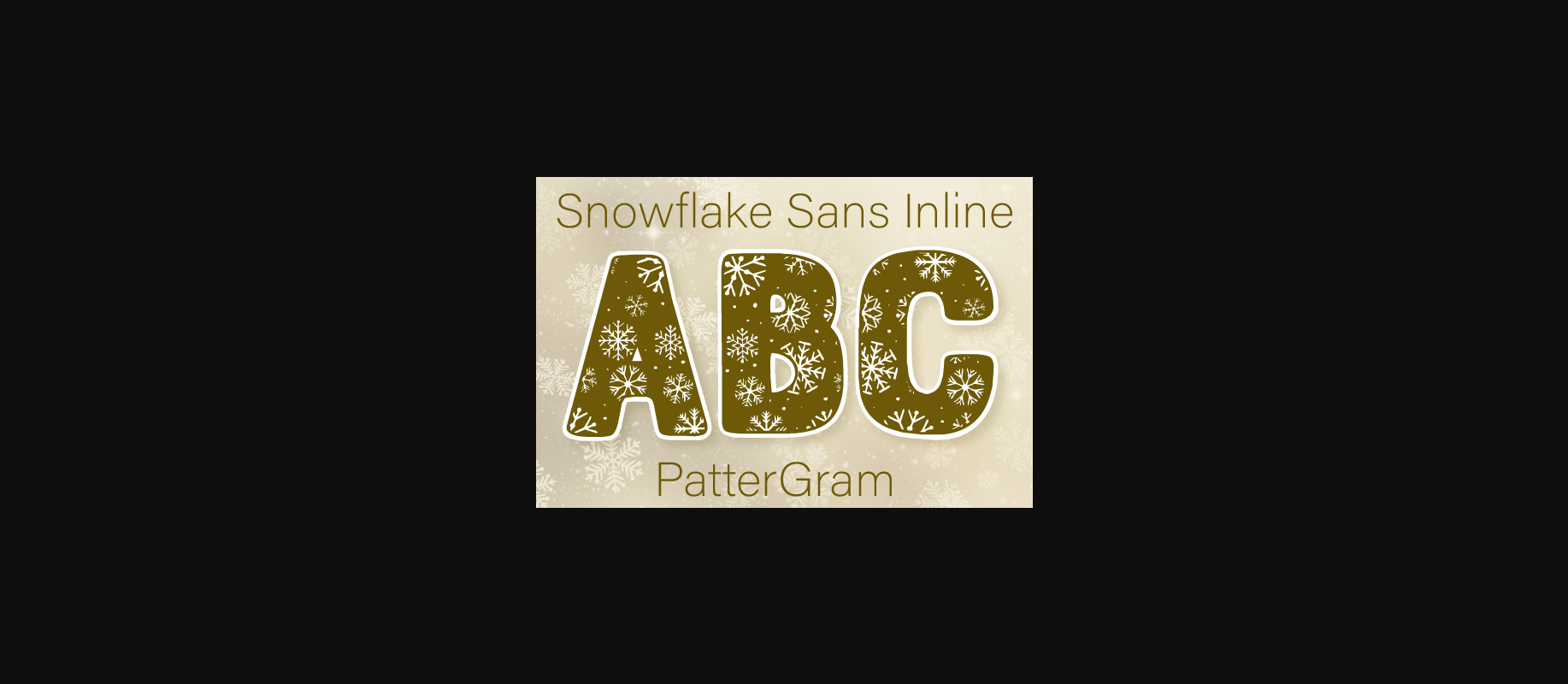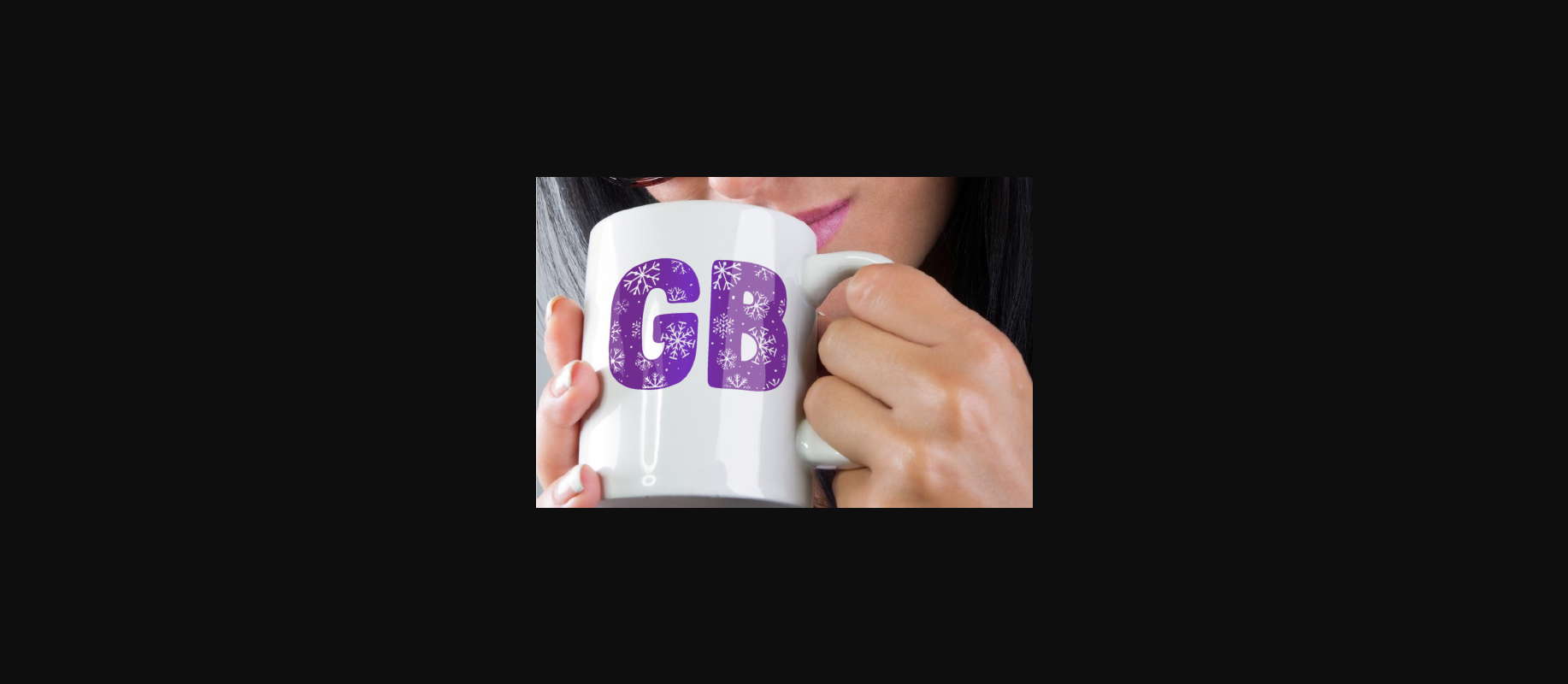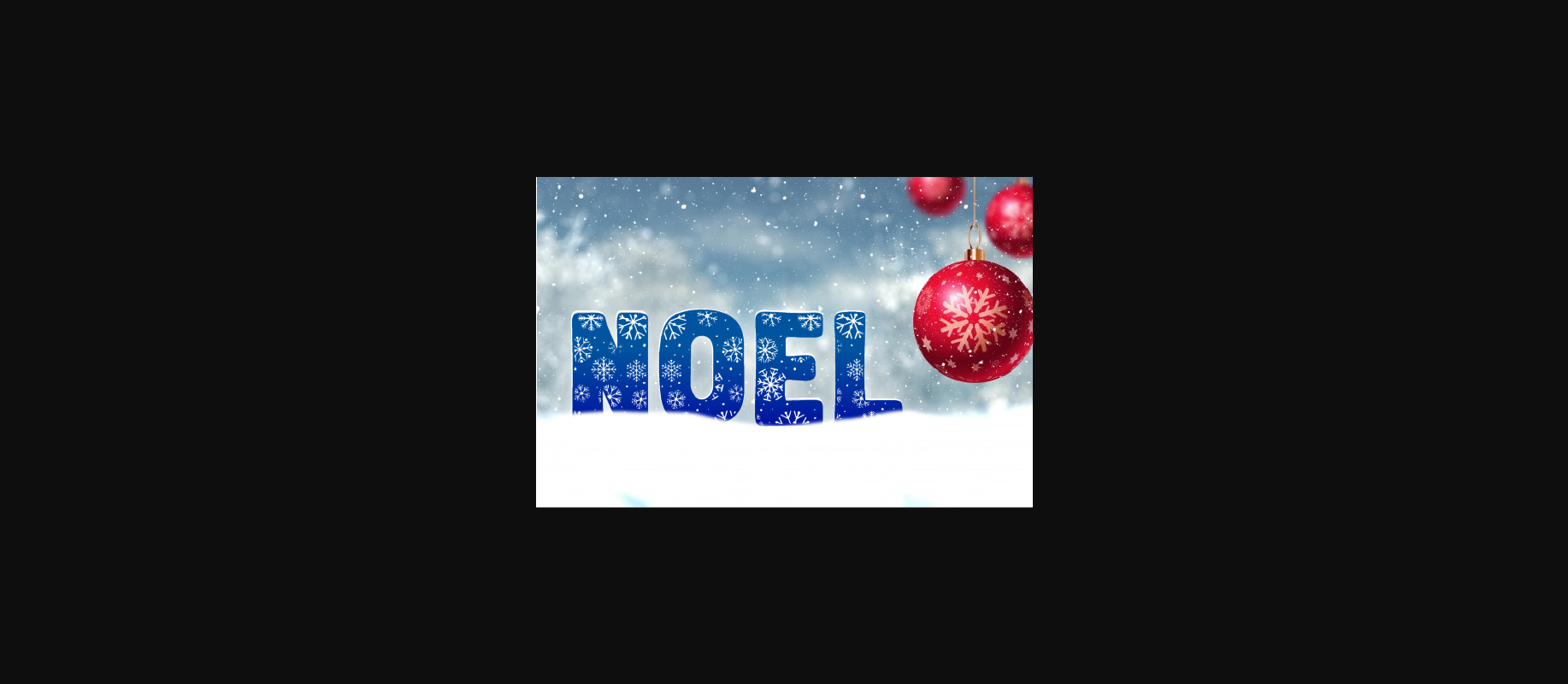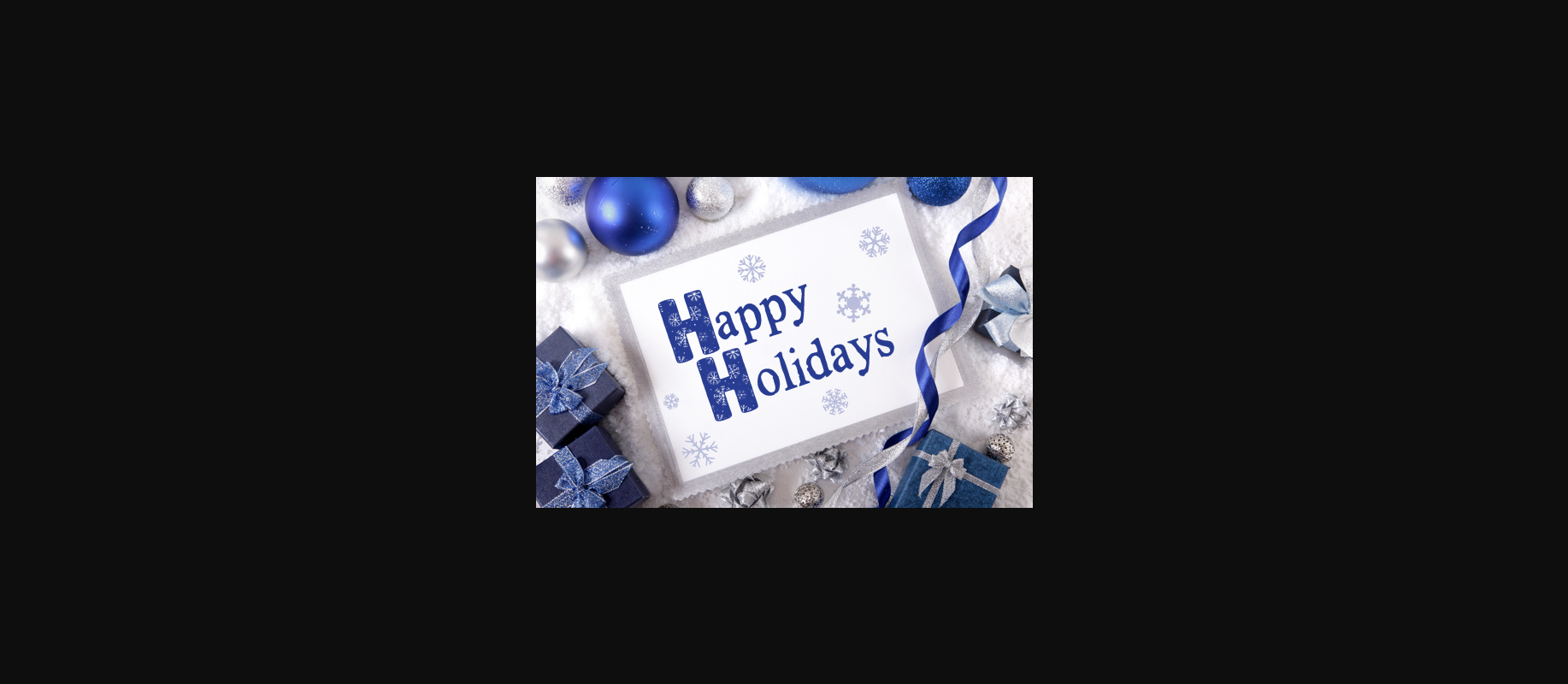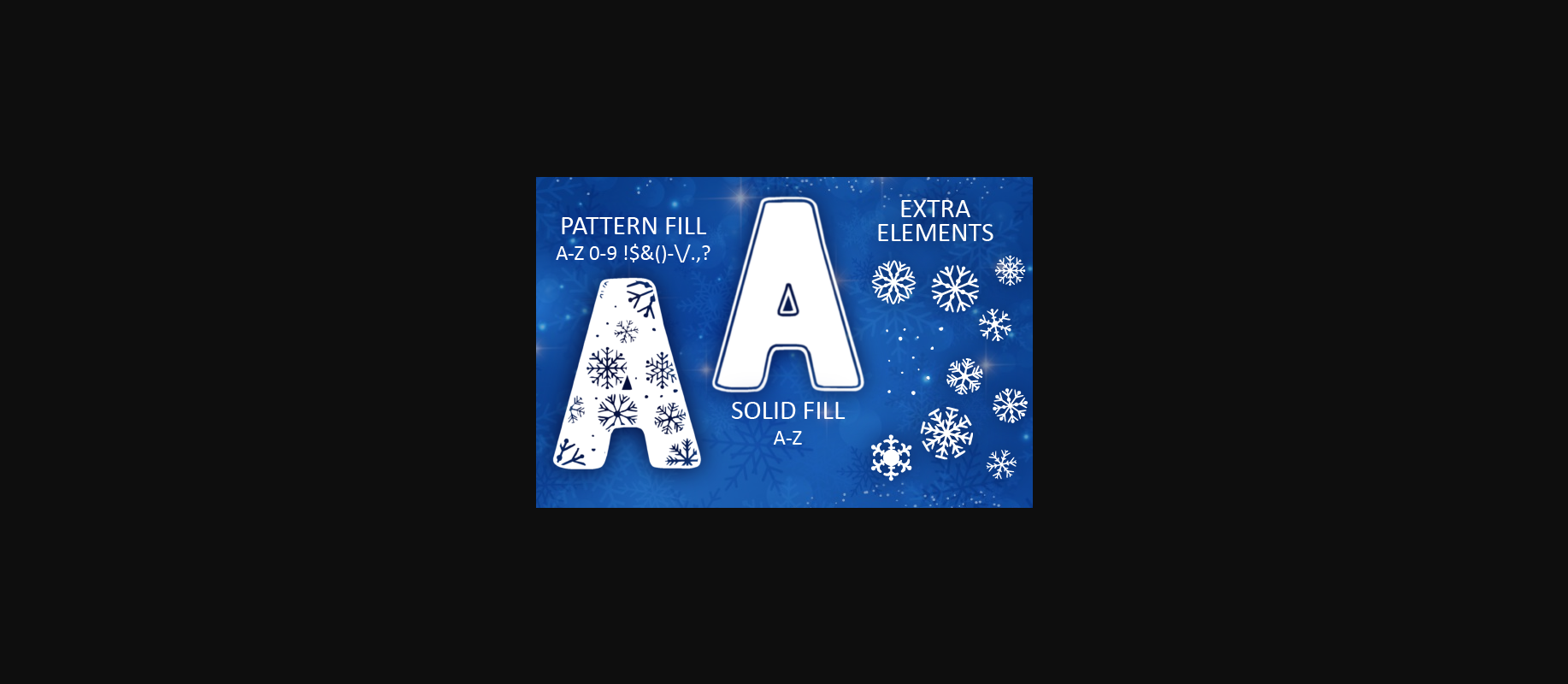
Snowflake Font
About Snowflake Font
‘Tis the season for fun in the snow! You’ll find that the stylish Snowflake is perfect for wonderful wintertime newsletters, handmade cards, scrapbook page titles, postcards, personalized stationery and more!
A Patter-gram is a pattern within a monogram, and a new way of expressing ornate beauty/fine details within a single character.